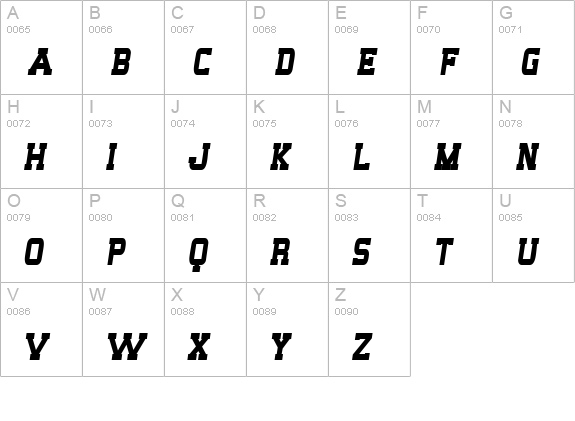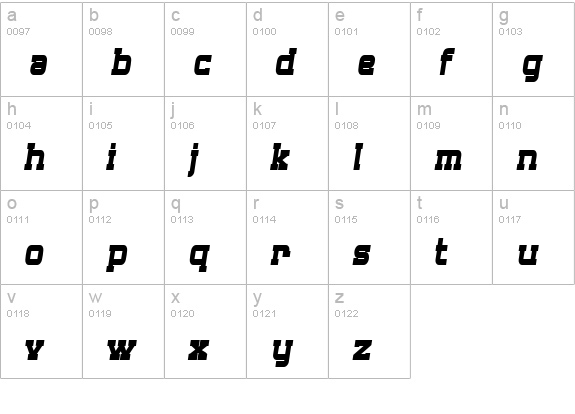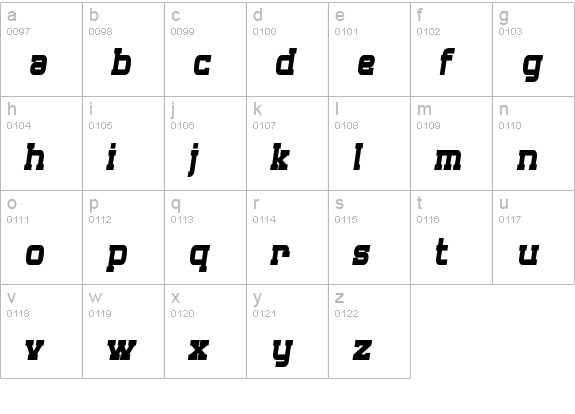
SF Big Whiskey Condensed Bold Font Details
SF Big Whiskey Condensed Bold is a strong, high-contrast, condensed-width variant in the SF typeface family \xE2\x80\x94 well suited to headlines, attention-grabbing titles, and strong calls-to-action.
SF Big Whiskey Condensed Bold is a striking and powerful font that demands attention with its bold and condensed design. The sharp edges and strong lines of this typeface exude a sense of confidence and strength, making it perfect for headline text, logos, and other impactful designs. With its condensed nature, SF Big Whiskey Condensed Bold allows you to fit more text into limited spaces without sacrificing legibility. This makes it an ideal choice for posters, banners, and any design project where space is at a premium. One of the most appealing aspects of SF Big Whiskey Condensed Bold is that it is freely available to download at FontsMarket.com. This means that you can easily access this incredible font without any cost, allowing you to enhance your designs without breaking the bank. Whether you're working on a professional project or simply want to add a touch of boldness to your personal creations, SF Big Whiskey Condensed Bold is sure to make a lasting impression. Its versatility and eye-catching design make it a valuable asset in any designer's toolkit. Download it today at FontsMarket.com and unleash the power of this stunning font in your next project.